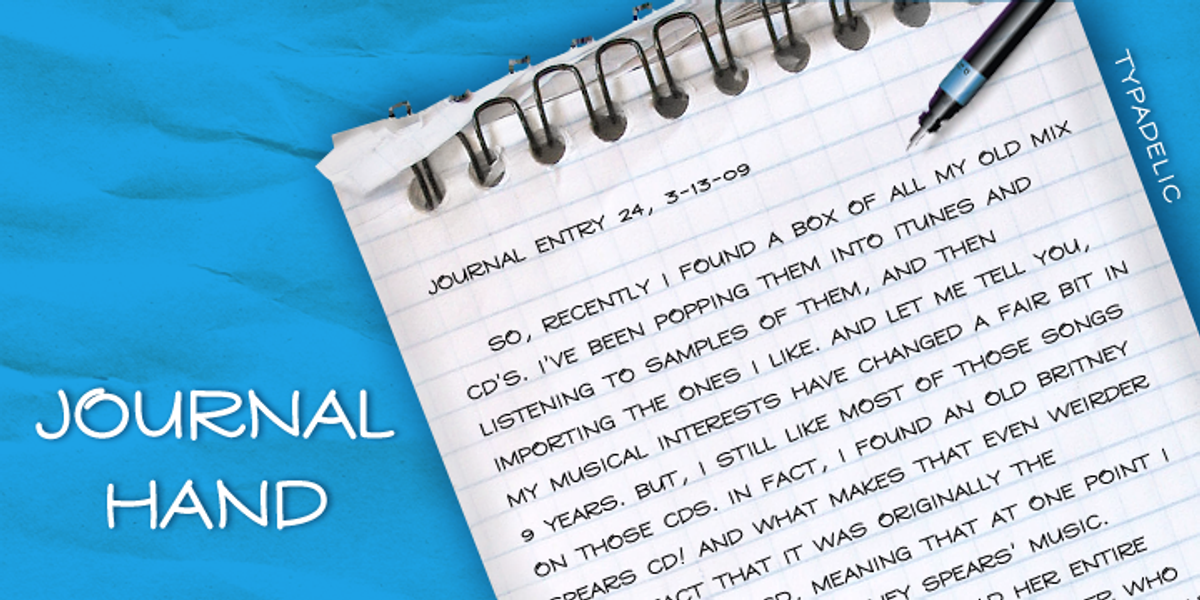
Journal Hand
Inspired by a vintage travel diary's neat all-caps handwriting, Journal Hand is a font designed to evoke a sense of personal touch and nostalgia. It features an all-uppercase style reminiscent of handwriting done with a technical pen, making it suitable for branding, handwritten notes, invitations, or any project requiring a charming and informal feel.